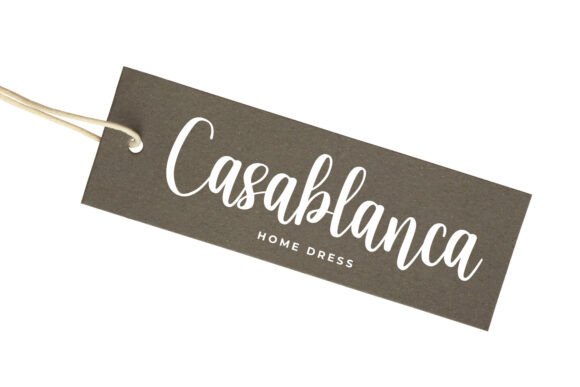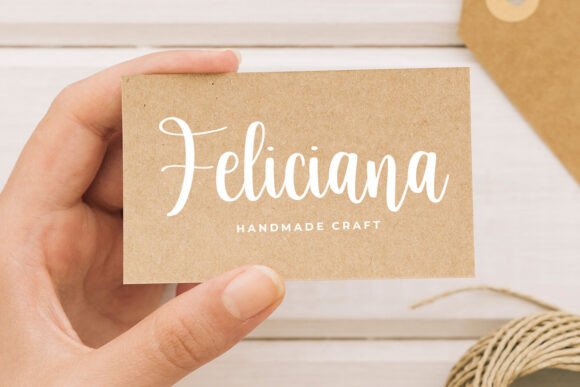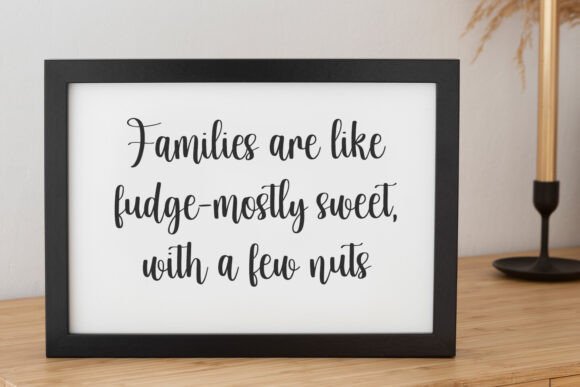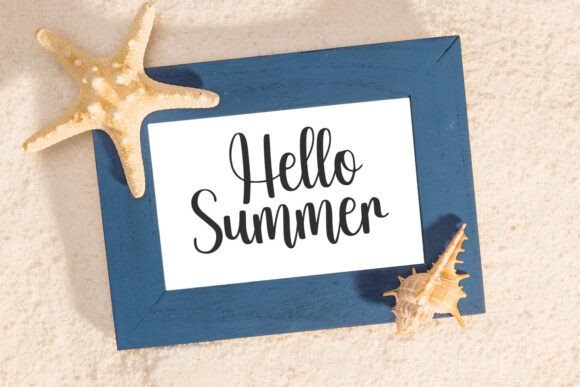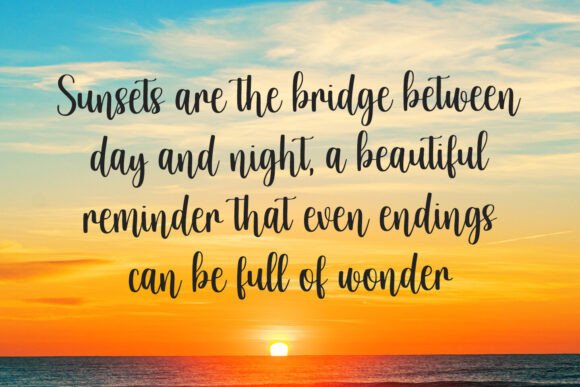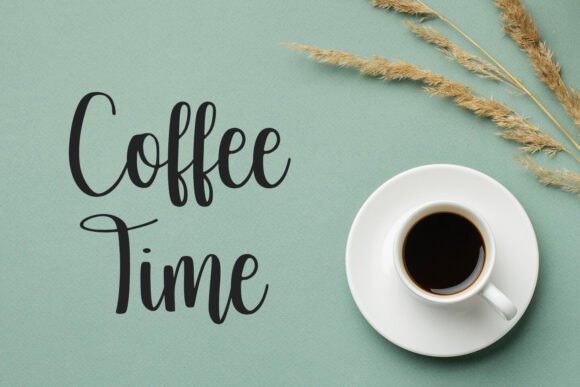
Introduction to Pinkypicks Font
Have you ever been brainstorming a creative project and stumbled upon that perfect font that makes everything click? For designers, finding the right font can be a game-changer, elevating a design from good to great. That’s exactly what the Pinkypicks Font does – it’s a sweet and friendly handwritten font that’s sure to bring a smile to your face.
With its natural and unique style, Pinkypicks Font is an incredibly versatile design resource that can be used in a wide range of creative projects. Whether you’re working on a digital design, a print project, or even a graphic novel, this font is sure to add a touch of personality to your work.
Key Features of Pinkypicks Font
- Features a unique, stylish design that can elevate any creative project
Honest Review: Pinkypicks Font
The Pinkypicks Font features a transparent background, making it easy to use in creative projects. The high-quality design is what caught my attention, and it’s perfect for a variety of designs, from logos to digital art.
- Only a few styles are available, which might limit its use in certain projects
Overall, I’m impressed with the Pinkypicks Font. While it has some limitations, its high-quality design and free download make it a valuable resource for designers. I’d definitely recommend it for small-scale projects or personal use.
With the Pinkypicks Font, you can create intricate designs and graphics with ease, thanks to its high-quality design and transparent background.
The Pinkypicks Font is perfect for adding a touch of creativity to your presentations and documents, and its transparent background makes it easy to use as a design element.
Common Use Cases for Pinkypicks Font
The Pinkypicks Font is perfect for a variety of creative projects, including:
Graphic design
Presentations
Tips for Getting the Most Out of Pinkypicks Font
To get the most out of the Pinkypicks Font, be sure to:
Combine the font with other design elements for a unique look
Use the font’s transparent background to create intricate designs
Alternatives to Pinkypicks Font
Alice Script
Alice Script is a beautiful, elegant font perfect for creative projects that require a touch of sophistication. This high-quality font is ideal for wedding invitations, greeting cards, or any design that needs a delicate, cursive touch.
Compared to Pinkypicks Font, Alice Script offers a more refined and intricate design, making it suitable for projects where a transparent background is required.
Great Vibes is a modern, stylish font that’s perfect for designers looking for a unique design resource. This font is ideal for creative projects that require a fun and playful touch, such as social media graphics, posters, or advertisements.
Unlike Pinkypicks Font, Great Vibes has a more dynamic and energetic feel, making it suitable for projects where a bold and eye-catching design is needed.